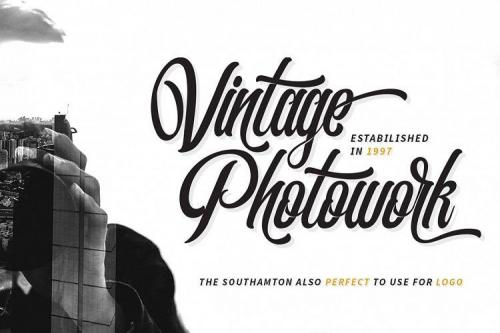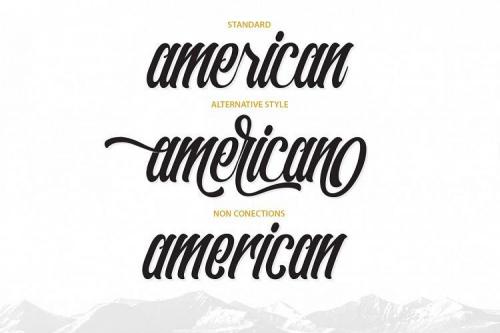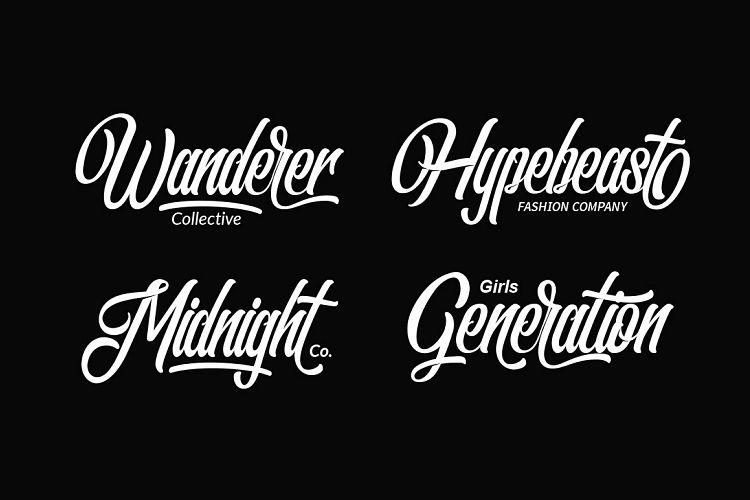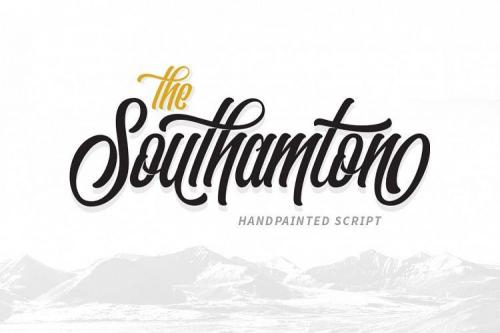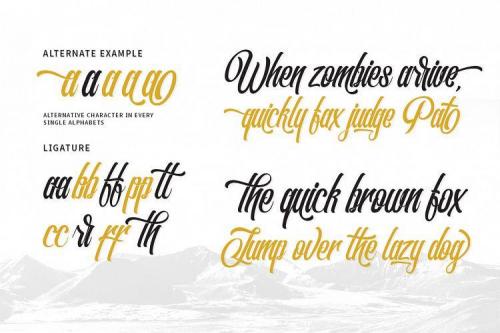
The Southamton Handpainted Typeface
The Southamton is a handpainted typeface with a customible style, it’s perfect for latterhead, vintage apparel design, headline, logotype, poster, card, and etc.
• Designer: WNPRHCO